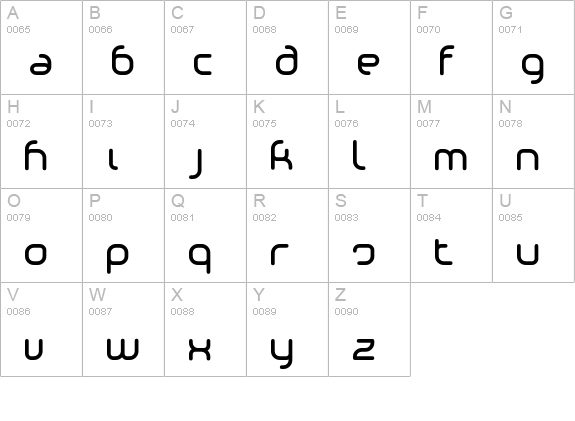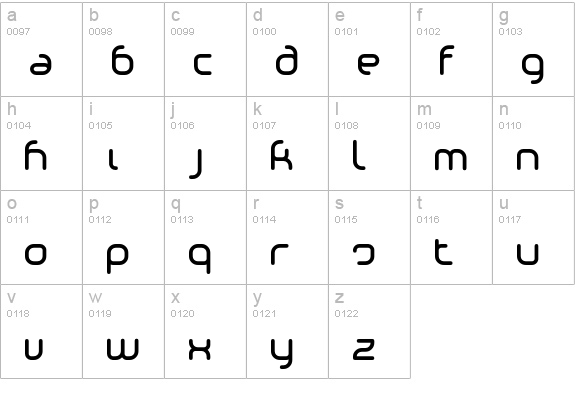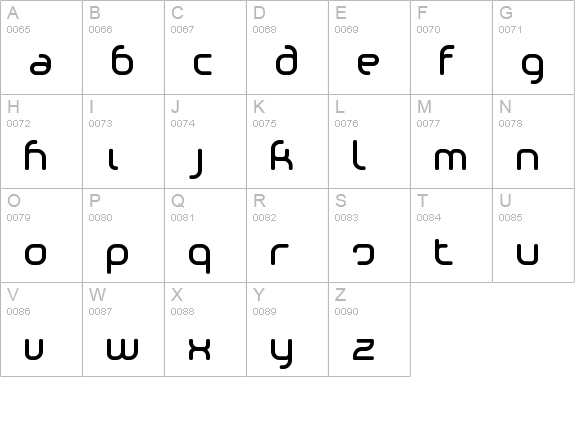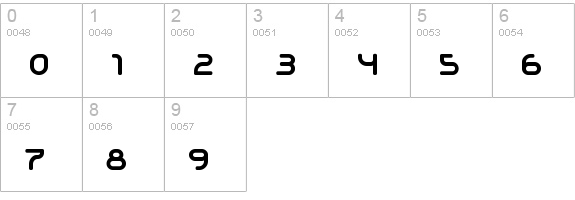
Phino Font Details
Phino font is a stunning typeface that combines modern elegance with a touch of playfulness. Its sleek and sophisticated design makes it perfect for a wide range of creative projects, from branding and advertising to social media graphics and website design. Featuring beautifully crafted letters, Phino font adds a touch of uniqueness to any design. Its clean lines and balanced proportions create a harmonious visual experience that is both eye-catching and easy to read. But what makes Phino font even more appealing is the fact that it is free! Yes, you read that right - this incredible font is freely available to download at FontsMarket.com. Now you can enhance your designs with this outstanding typeface without breaking the bank. Whether you're a professional designer looking to add a fresh and modern twist to your projects, or a creative individual who wants to make a statement with their personal branding, Phino font is the perfect choice. Its versatility and aesthetic appeal will surely captivate your audience and leave a lasting impression. So why wait? Don't miss out on the opportunity to elevate your designs with Phino font. Head over to FontsMarket.com and download it for free today!